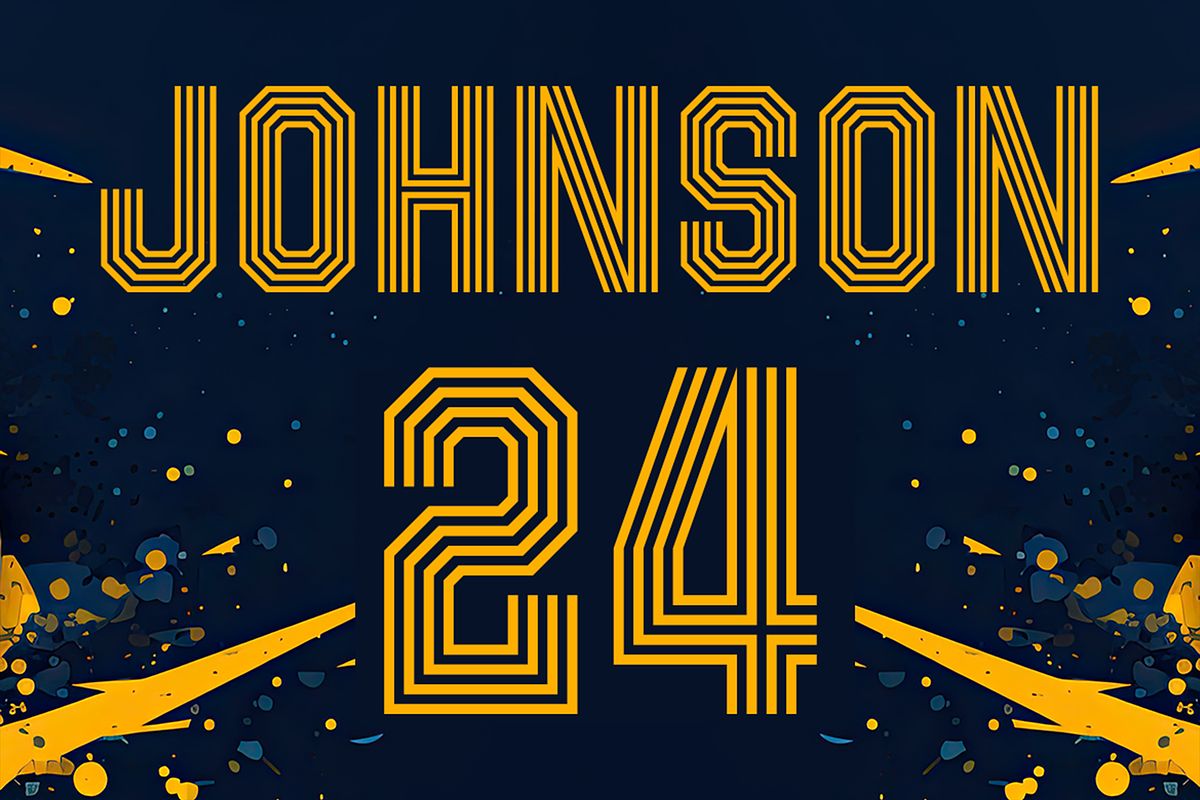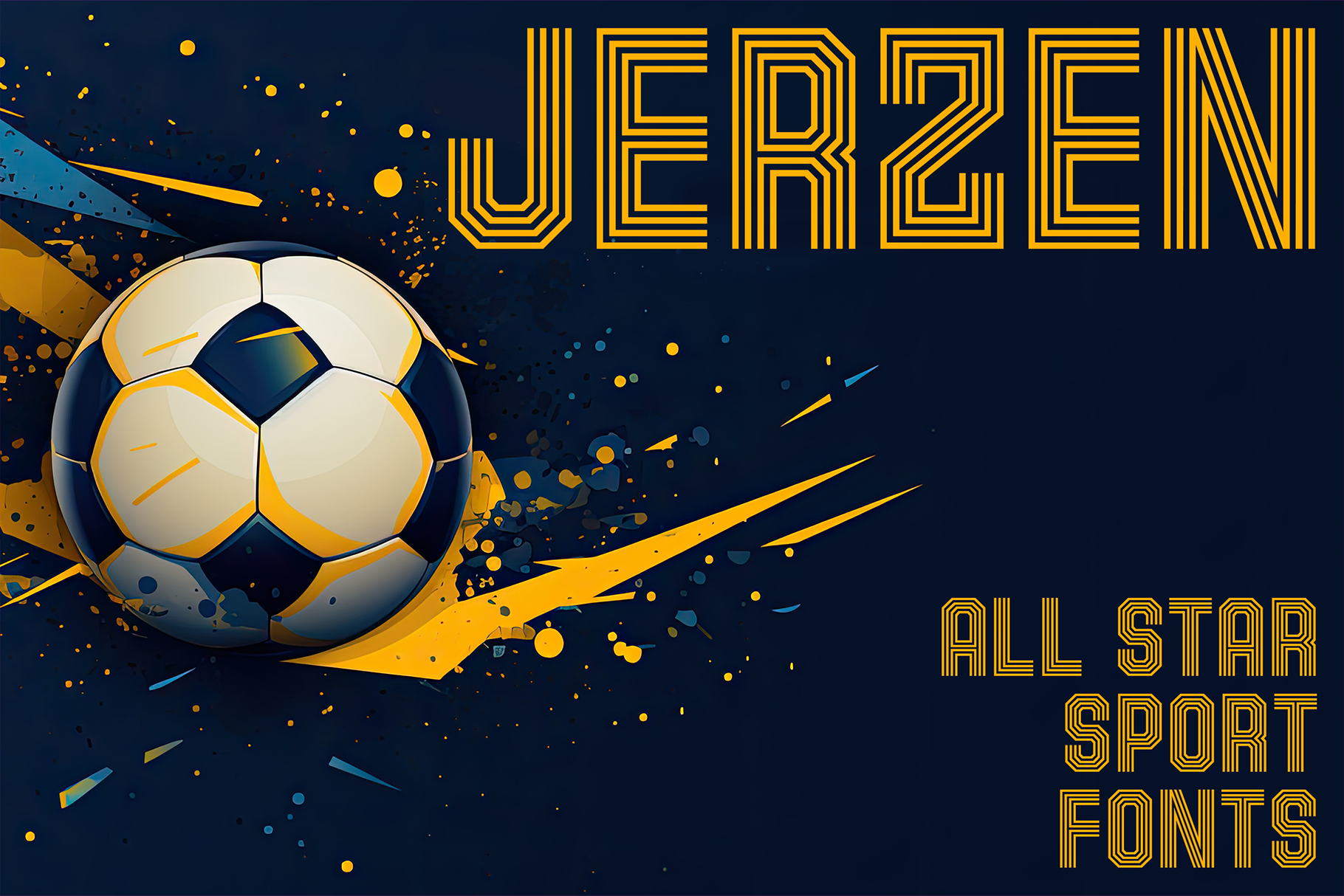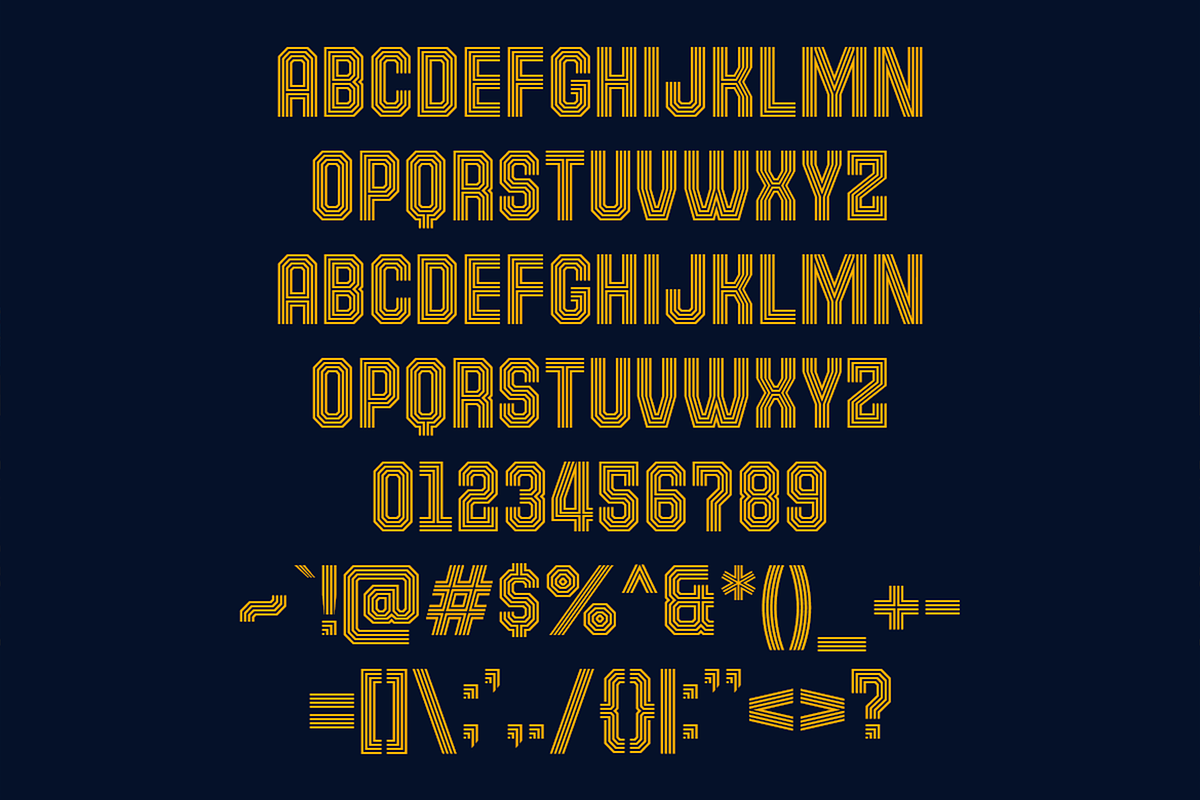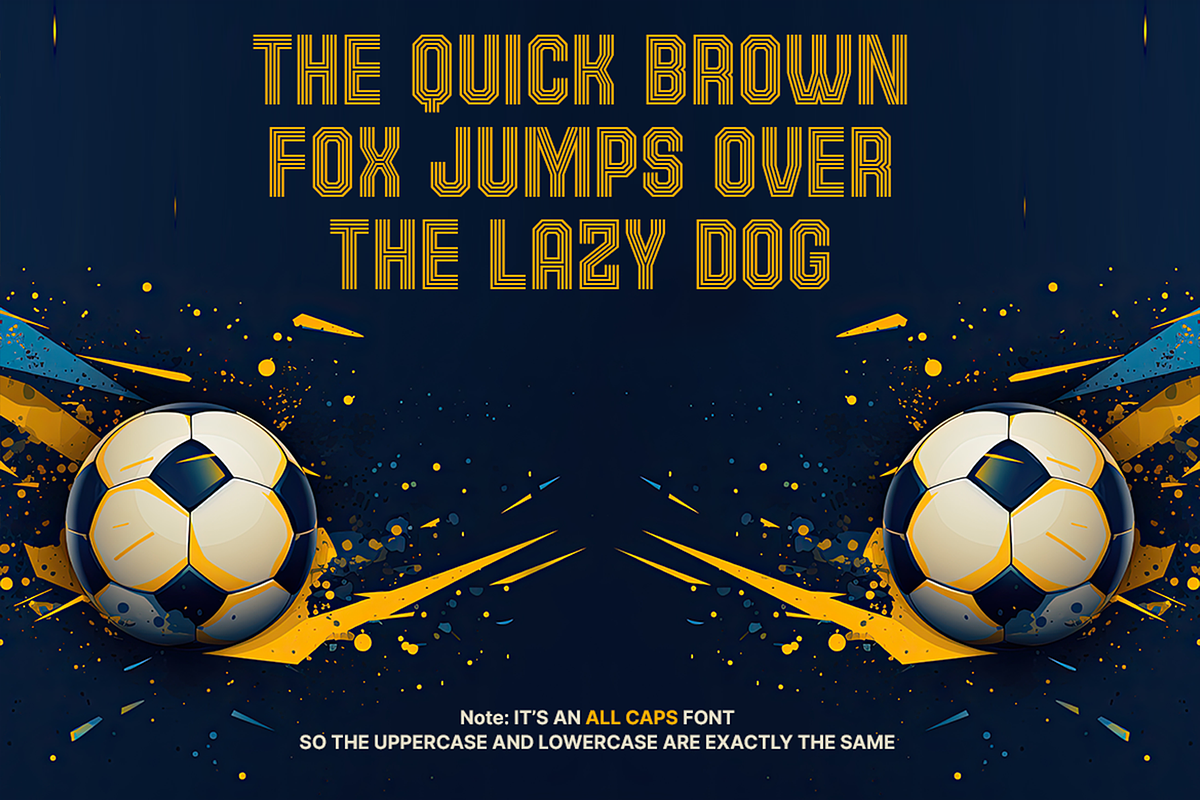
Jerzen - All Star Sport Fonts
Get ready to elevate your designs with Jerzen – the ultimate bold font that channels the energy and style of today’s sports jersey trends.
Inspired by the dynamic world of athletic fashion, Jerzen brings a powerful, modern edge to your projects. Whether you’re designing jerseys, creating visuals for sports events, or just looking to make a statement, this font is your perfect match.
Use Jerzen to:
- Design Jerseys: Create standout sportswear with a font that’s as bold as the players.
- Sport Events: Capture the excitement of the game with visuals that pop.
- Brand Teams: Give your sports team an unforgettable identity with a font that screams style and power.
Make every design a game-changer with Jerzen – the font that’s ready to score big in the world of sports and fashion.